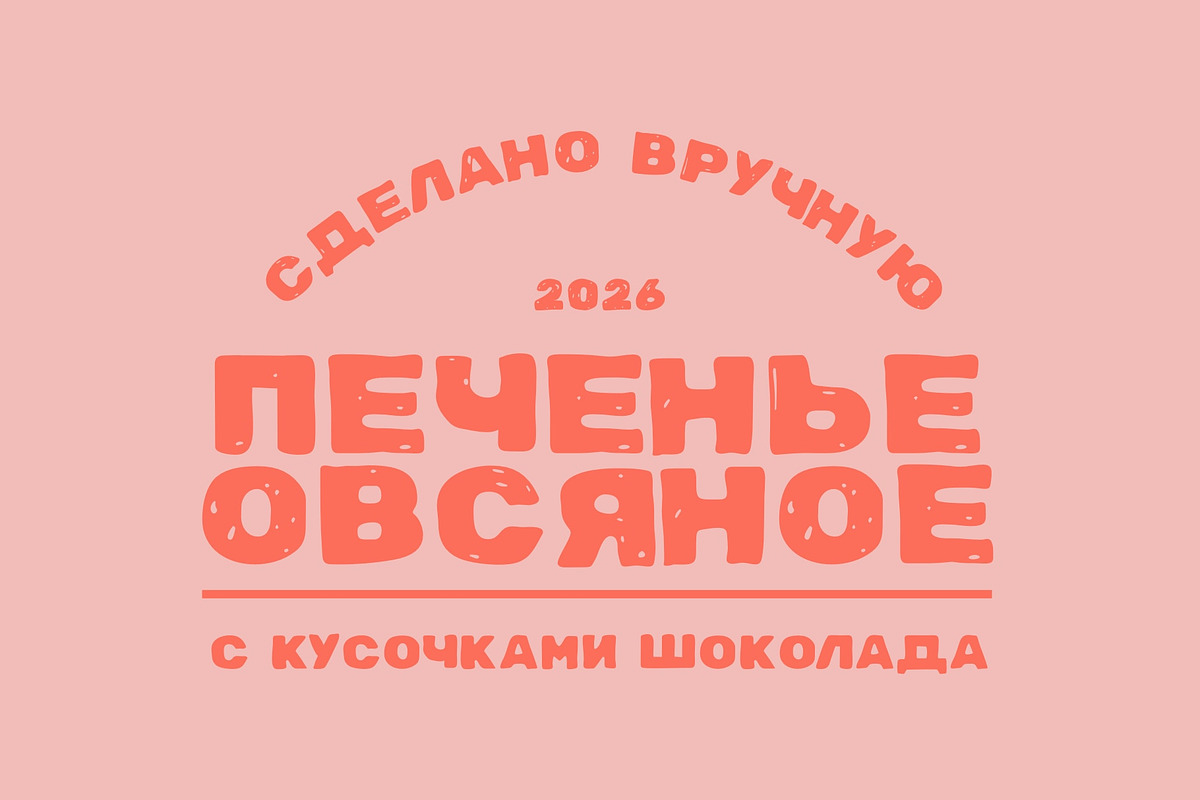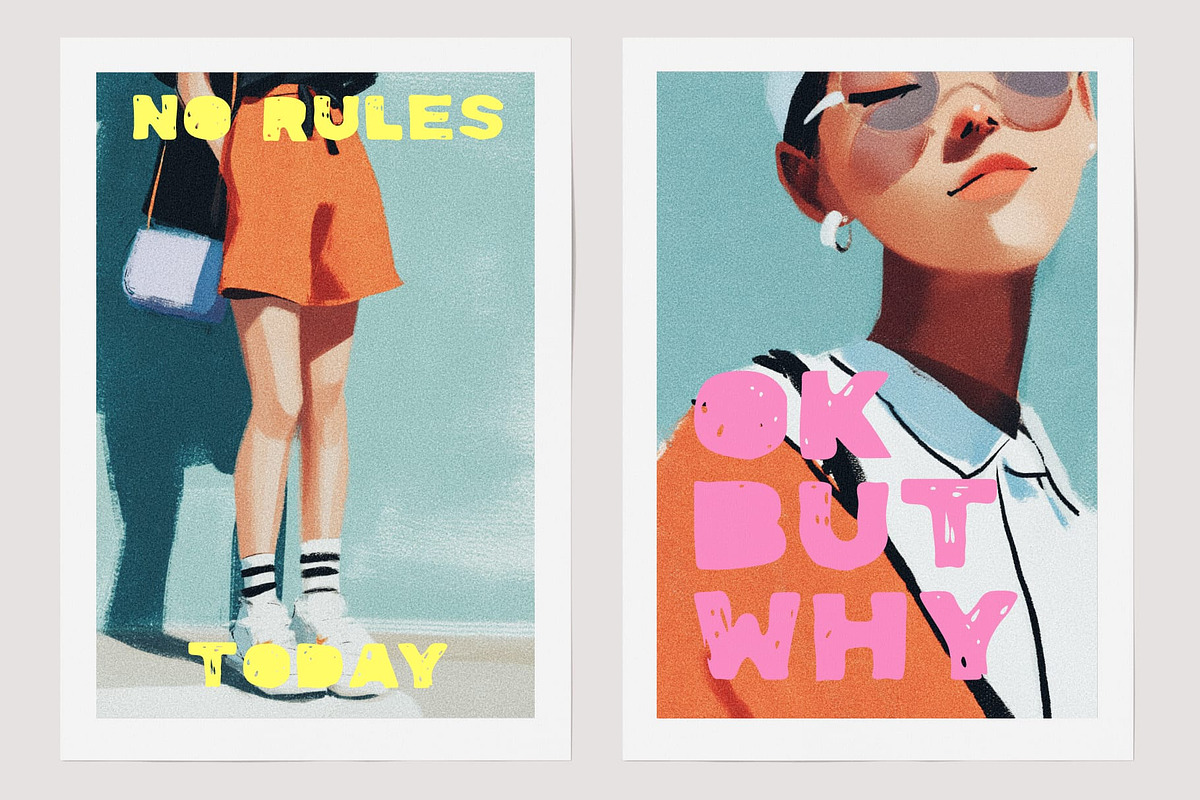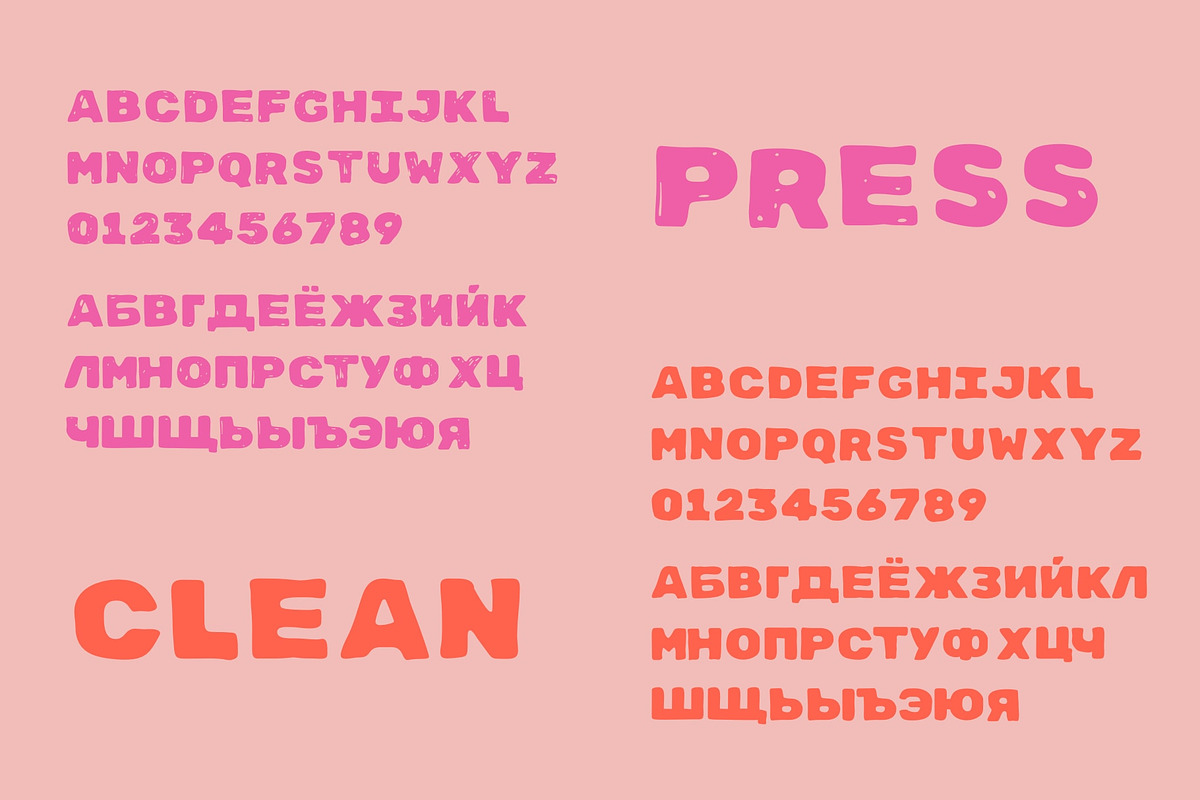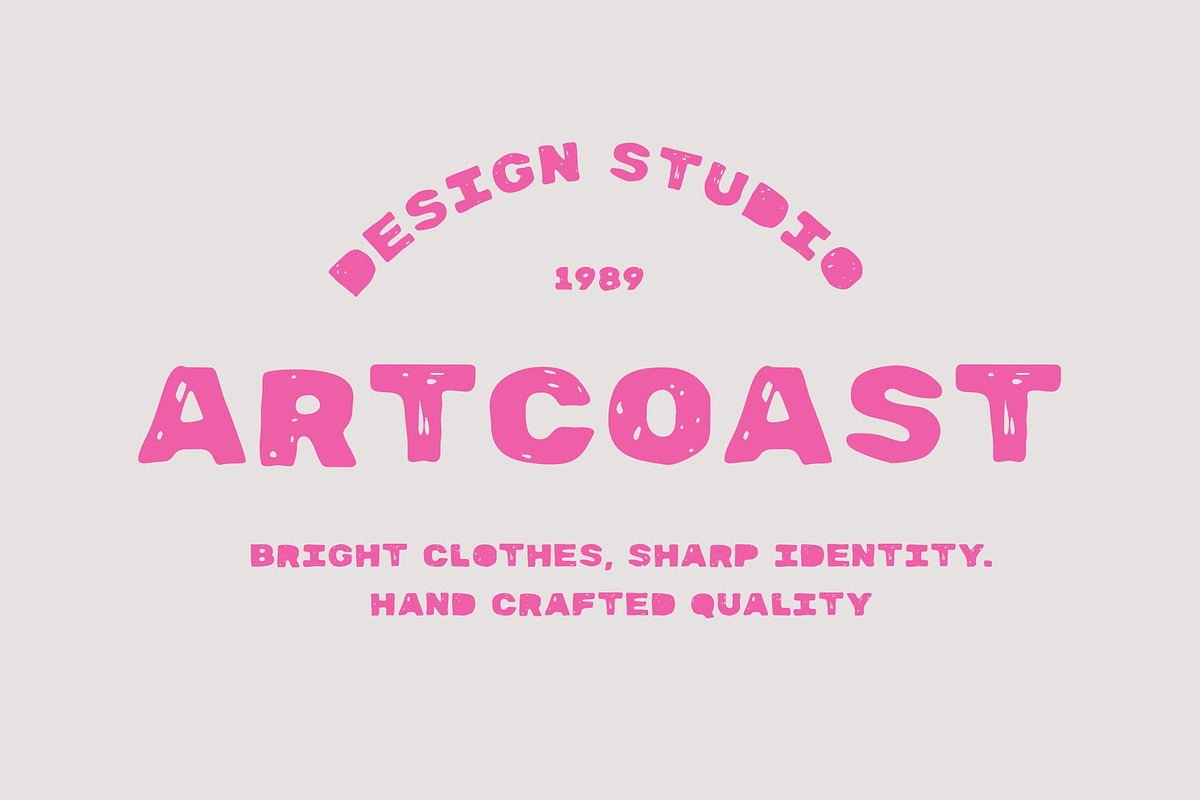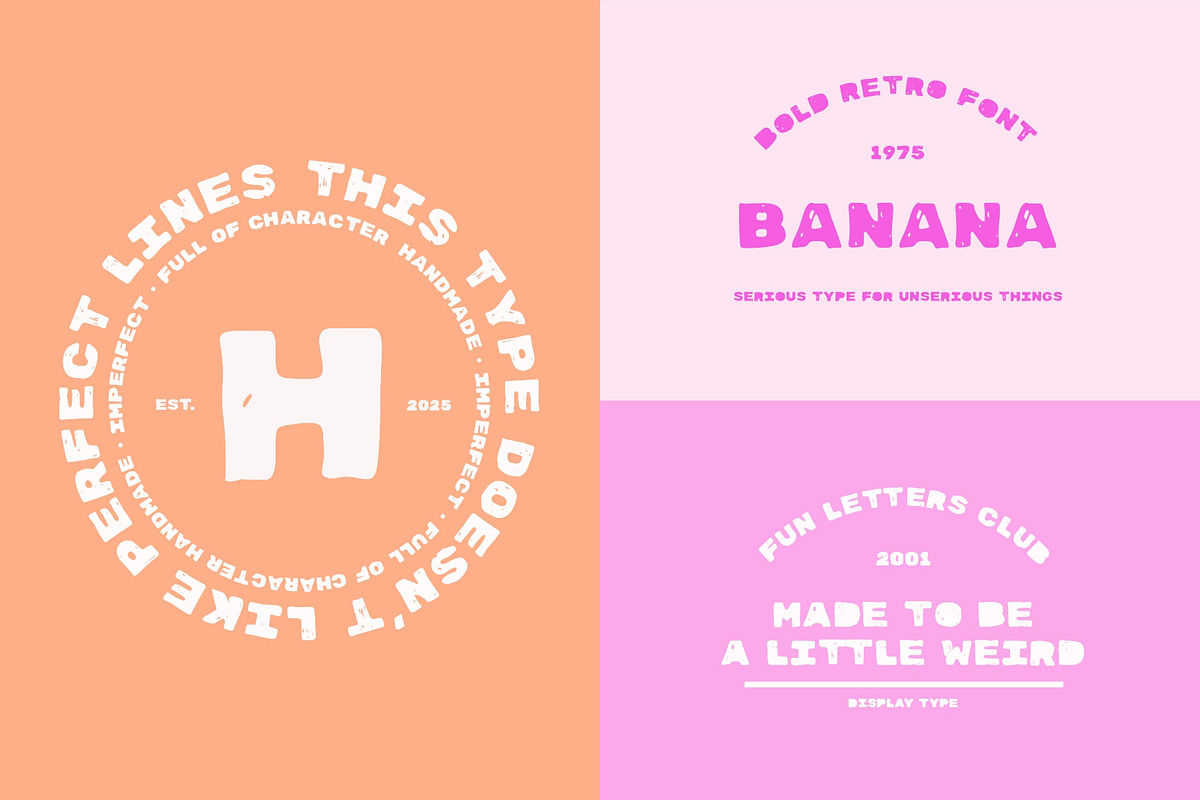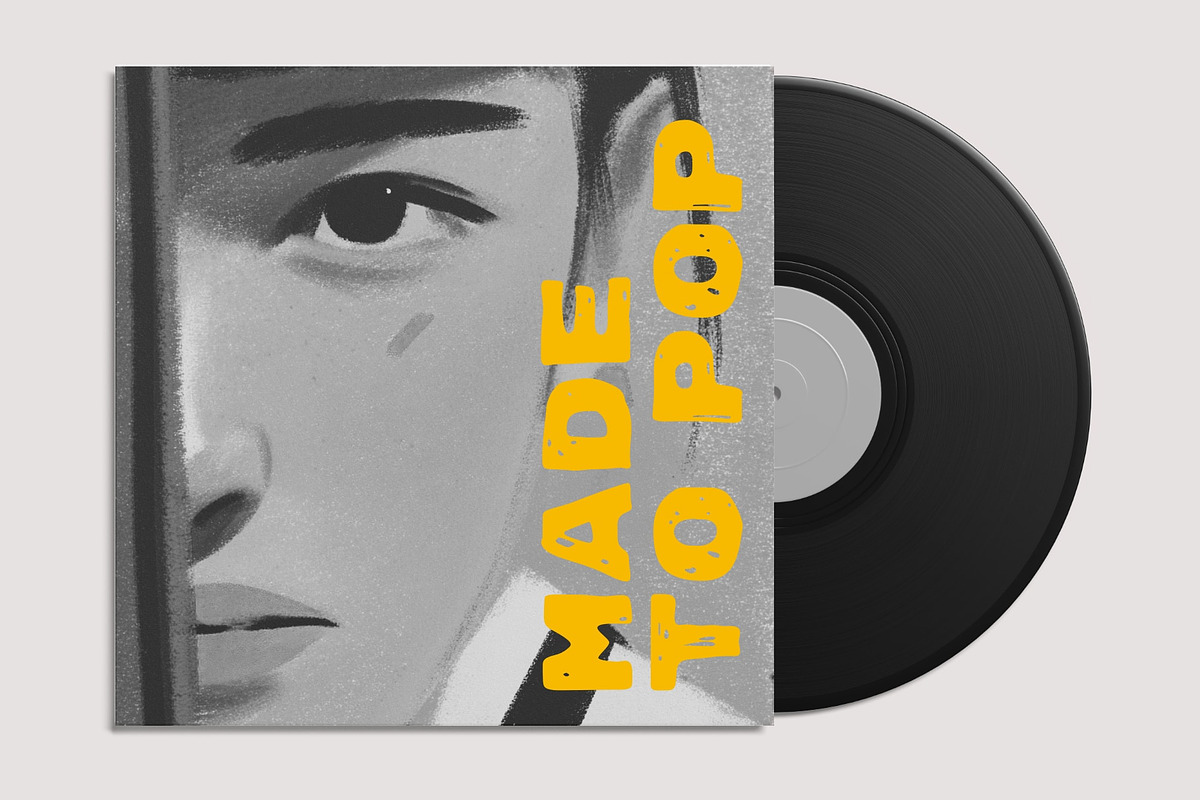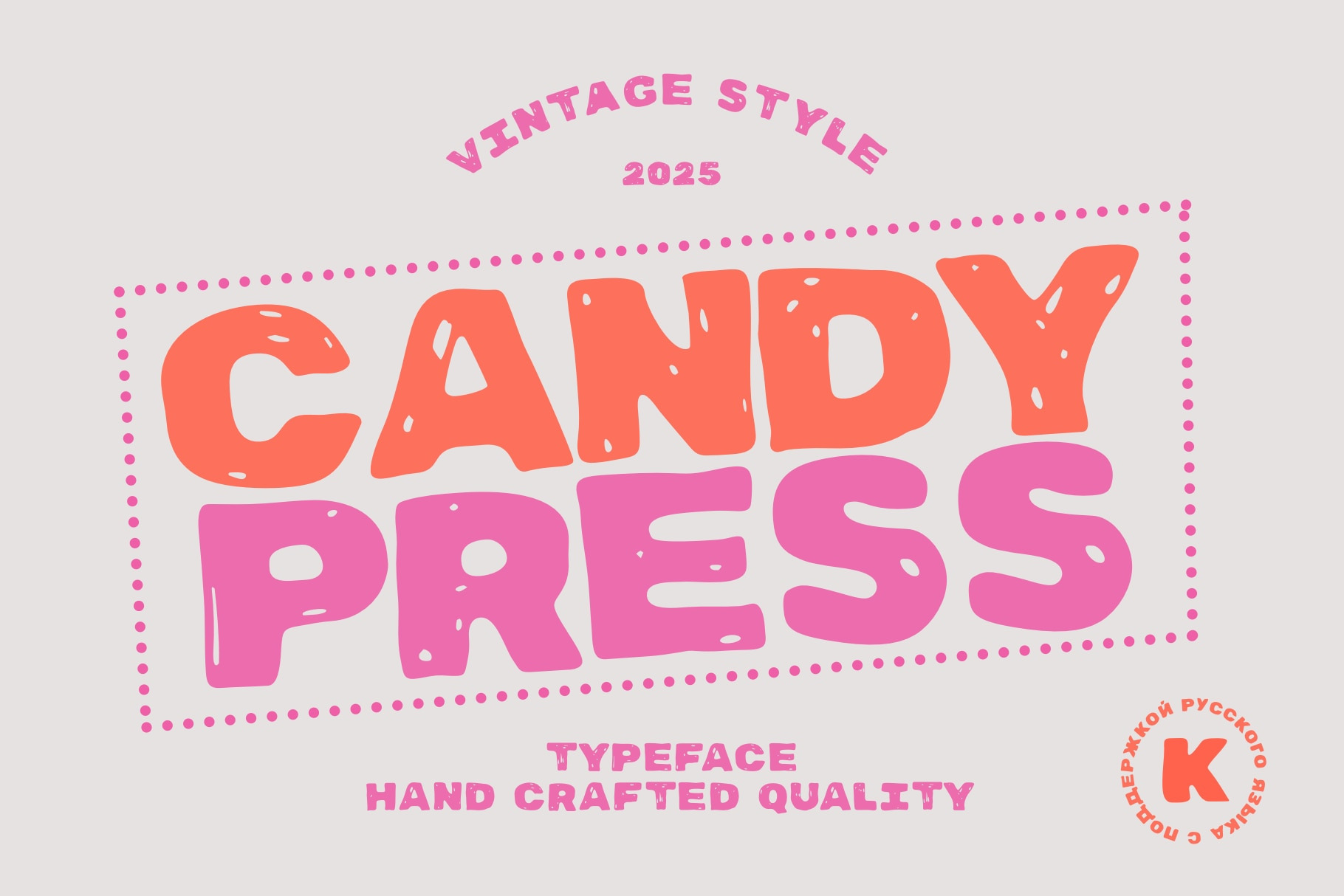
SA Candy Press Retro Display Font
SA Candy Press is a bold retro display font with the imperfect character of hand-printed lettering. Its chunky shapes and playful rhythm are made to stand out in posters, packaging, logos, editorial covers, apparel graphics, social media and bold branding.
The family includes two complementary styles: Regular, with worn organic details, and Clean, with smoother solid forms. Use them separately or combine them to build expressive headlines with a consistent voice. Uppercase Latin and Cyrillic alphabets plus numerals make the font useful for English- and Russian-language projects.
SA Candy Press Regular
SA Candy Press Clean
Uppercase Latin and Cyrillic characters
Numerals